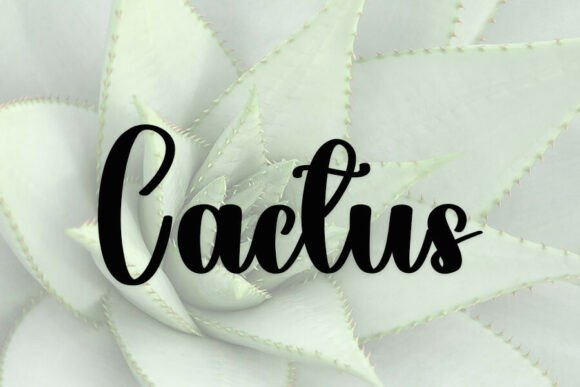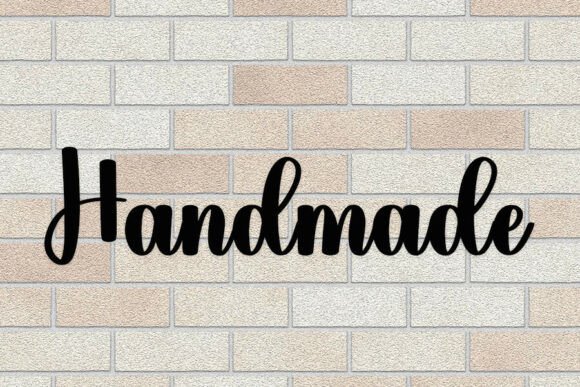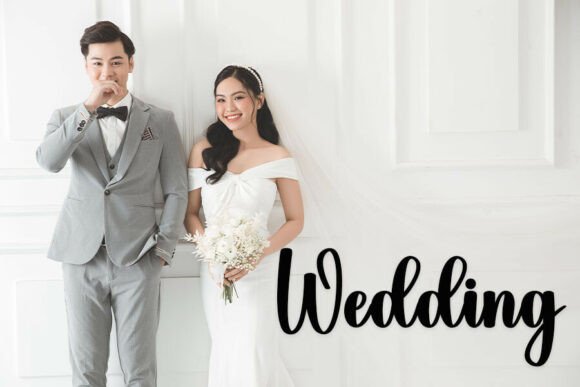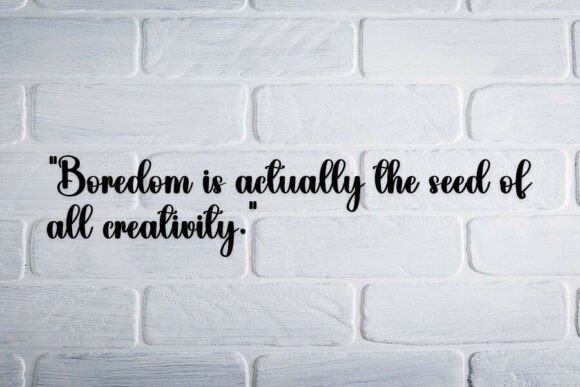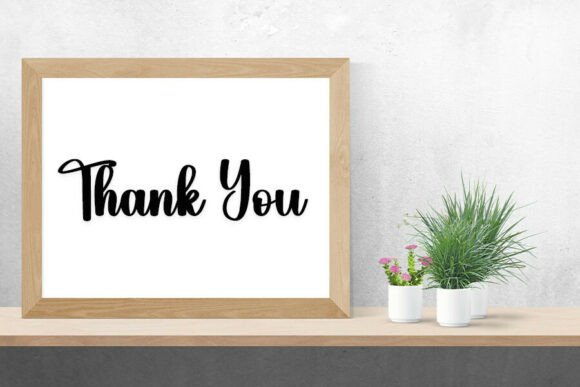
Introducing Christian Font: The Sweet and Elegant Handwritten Font
Are you looking for a font that can add a touch of elegance and romance to your design projects? Look no further than Christian Font, a beautiful and versatile handwritten font that is perfect for a wide range of applications. In this article, we’ll take a closer look at Christian Font, its features, and how you can use it to elevate your designs.
What is Christian Font?
Christian Font is a sweet and cursive handwritten font that is designed to bring a touch of joy and romance to your designs. Its gentle and flowing lines make it perfect for creating elegant and sophisticated designs that are sure to impress. Whether you’re working on a branding project, designing a logo, or creating wedding materials, Christian Font is the perfect choice.
Key Features of Christian Font
So, what makes Christian Font so special? Here are some of its key features:
- Handwritten style: Christian Font has a beautiful handwritten style that gives it a personal and unique touch.
- Cursive lines: The font features flowing cursive lines that add a touch of elegance and sophistication to your designs.
- Versatile: Christian Font is perfect for a wide range of design applications, from branding and logos to wedding materials and greeting cards.
- Elegant and casual: The font strikes the perfect balance between elegance and casualness, making it perfect for designs that need to be both sophisticated and approachable.
Use Cases for Christian Font
Christian Font is a versatile font that can be used in a wide range of design applications. Here are some ideas to get you started:
- Branding: Use Christian Font to create a unique and memorable brand identity that stands out from the crowd.
- Logos: The font is perfect for creating elegant and sophisticated logos that reflect your brand’s values and personality.
- Wedding materials: Christian Font is a popular choice for wedding designs, including invitations, programs, and place cards.
- Greeting cards: The font is also perfect for creating beautiful and heartfelt greeting cards for special occasions.
- Fashion and lookbooks: Use Christian Font to add a touch of elegance and sophistication to your fashion designs and lookbooks.
- Marketing promotions: The font is also great for creating eye-catching marketing materials, such as brochures, flyers, and posters.
Tips for Using Christian Font
Here are some tips for getting the most out of Christian Font:
- Pair it with other fonts: Christian Font pairs well with other fonts, such as sans-serif fonts and script fonts.
- Experiment with colors: The font looks great in a range of colors, from bold and bright to soft and pastel.
- Use it in combination with images: Christian Font looks great when used in combination with images, such as photographs and illustrations.
Christian Font is a beautiful and versatile handwritten font that is perfect for a wide range of design applications. Its elegant and cursive lines make it perfect for creating sophisticated and romantic designs that are sure to impress. Whether you’re a designer, crafter, or DIY enthusiast, Christian Font is a great choice for your next project.